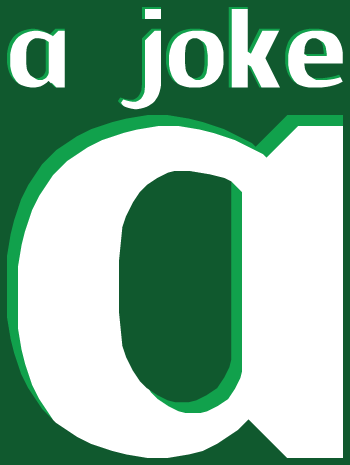
FS Smooth Joke
I haven't made anything for quite a bit, huh? My gift to you. Just a little WIP.
Looks good at size 800.
Excellent and very curvacious. It deserves an Uppercase. 10/10+++
PS. I think the word spacing could be a wee bit wider.
@P2pnut: I'll work on capitals and word space.
Very good!
In addition to increasing the word space, I would try increasing the letter spacing just a tiny bit.
Also, maybe try moving the crossbar of the t up to the x-height.
@Aphoria: I will.
This is really neat! You have really improved since your first few FSions, IG.